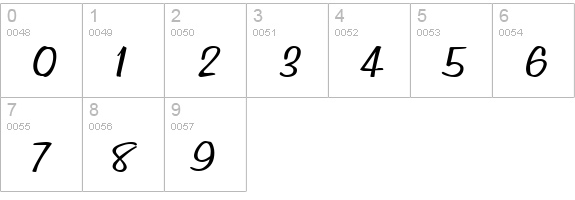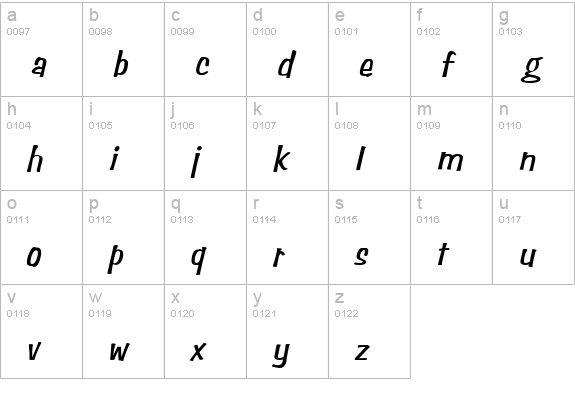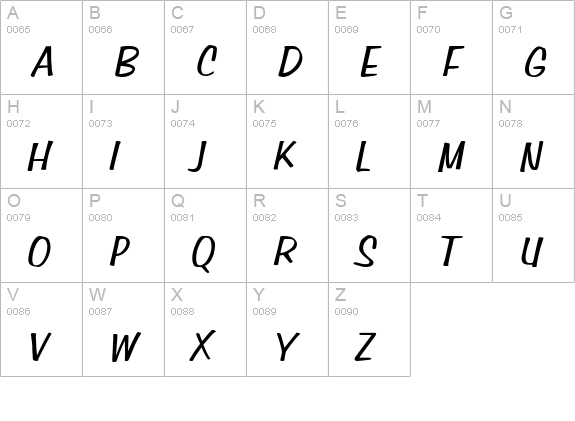
Simpson Italic is a distinctive, italic variant in the Simpson typeface family \xE2\x80\x94 well suited to design and typography projects.
Simpson Italic font is a beautifully crafted typeface that exudes elegance and sophistication. Its unique and slanted design adds a touch of modernity to any project, making it perfect for both personal and professional use. With its smooth curves and graceful letterforms, Simpson Italic font captures attention and creates a sense of refined style. Whether you're designing a logo, creating an invitation, or working on a branding project, this font will effortlessly elevate your design to new heights. One of the best features of Simpson Italic font is that it is free to download at FontsMarket.com. This means you can easily access this stunning typeface without any cost, making it a valuable asset for designers on a budget. The versatility of Simpson Italic font allows it to be used in a wide range of applications, from digital projects to print materials. Its legibility and readability make it a great choice for body text, while its unique design elements make it perfect for headlines, titles, and logos. Whether you're a professional designer or a hobbyist, Simpson Italic font will inspire your creativity and help you make a lasting impression. Download it freely at FontsMarket.com and unleash the full potential of this exceptional typeface in your next design project.